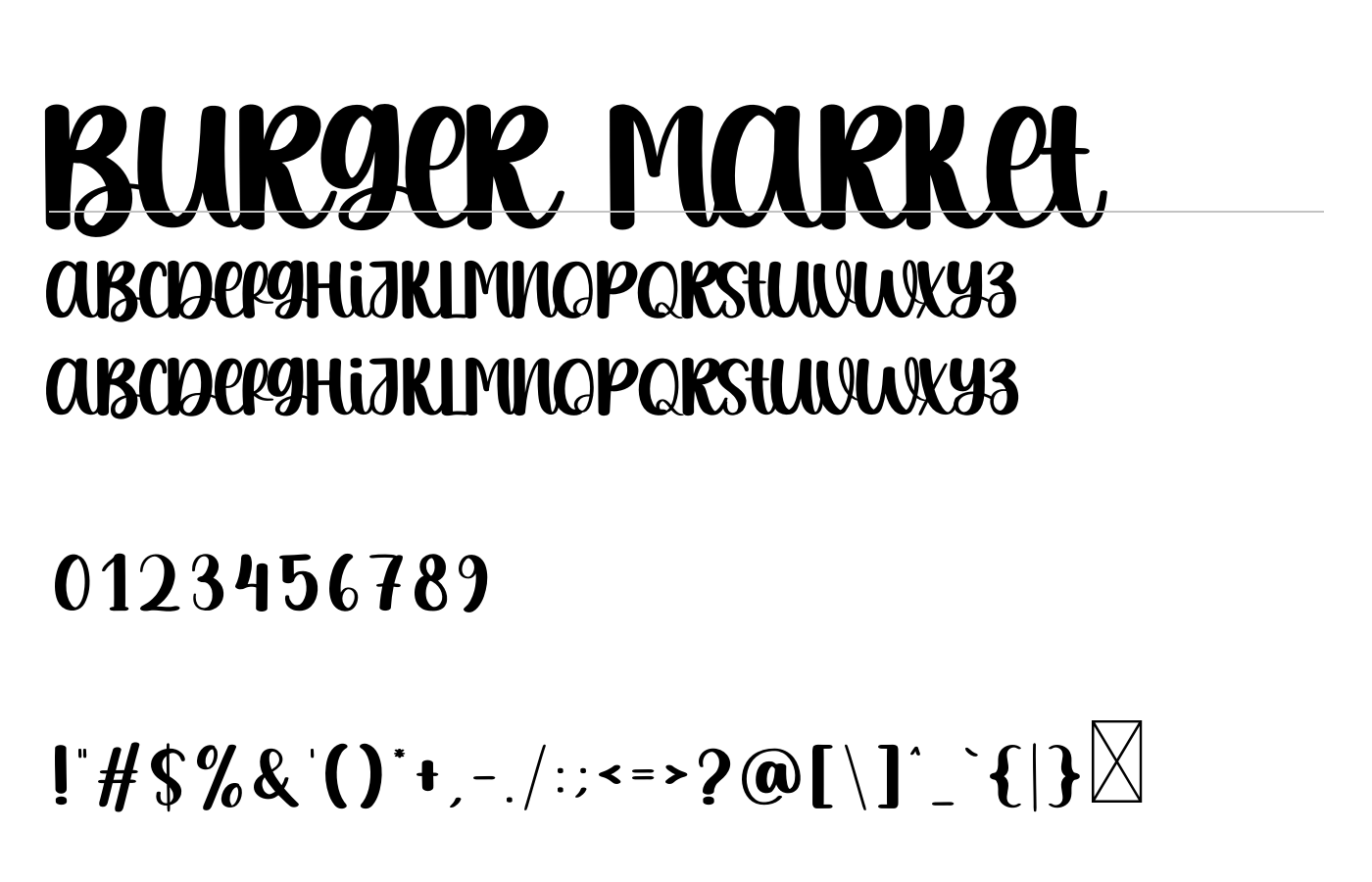
Burger Market is a playful and bold handwritten script font that combines thick, rounded strokes with whimsical, irregular shapes, giving it a friendly and approachable feel. Its casual and lively style makes it perfect for branding, packaging, and signage in food-related or fun, informal contexts where personality and warmth are key. This font works best for headlines and logos that need to capture attention with a cheerful, hand-crafted vibe.
Burger Market Font